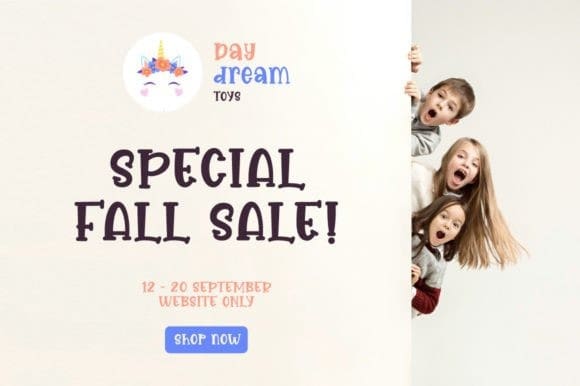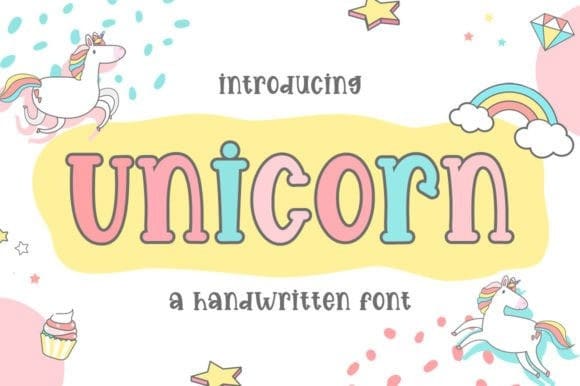
Unicorn Fun Font
Unicorn Fun Font, is a fun and cute-looking serif font. It looks lovely on invitations, thank you cards, quotes, greeting cards, logos, business cards, and every other design which needs a friendly touch.